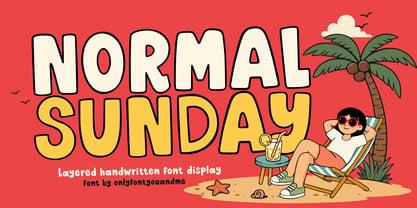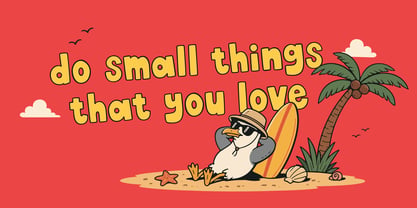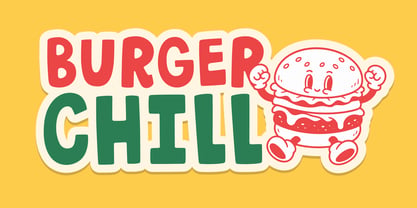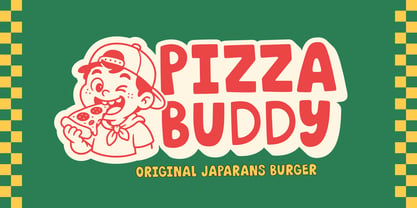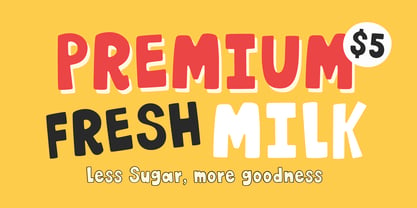
Normal Sunday
by onlyfontyouandme
The Normal Sunday Font Family was designed by Aghny Akromuddin El Haq and published by onlyfontyouandme. Normal Sunday contains 2 styles and family package options. More about this family
Normal Sunday is a playful layered handwritten display font with bold, chunky letterforms and a fun hand-drawn personality. Its rounded shapes, slightly imperfect strokes, and thick outline style give it a cheerful, casual, and friendly look. Perfect for summer designs, beach-themed posters, kids branding, stickers, packaging, social media graphics, T-shirts, and fun product mockups. The layered style makes it easy to create colorful, eye-catching typography with a relaxed Sunday vibe.
Designers: Aghny Akromuddin El Haq
Foundry: onlyfontyouandme